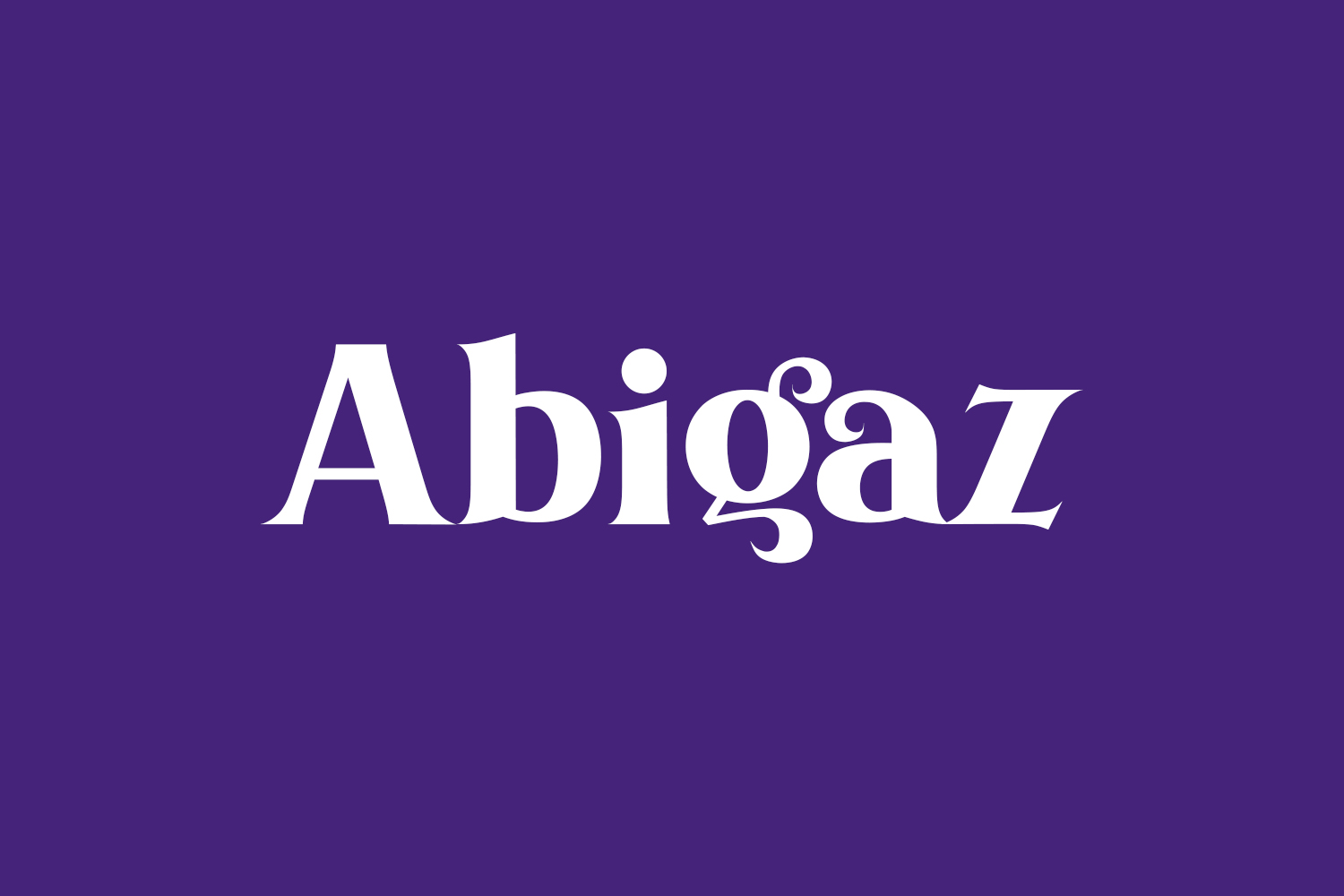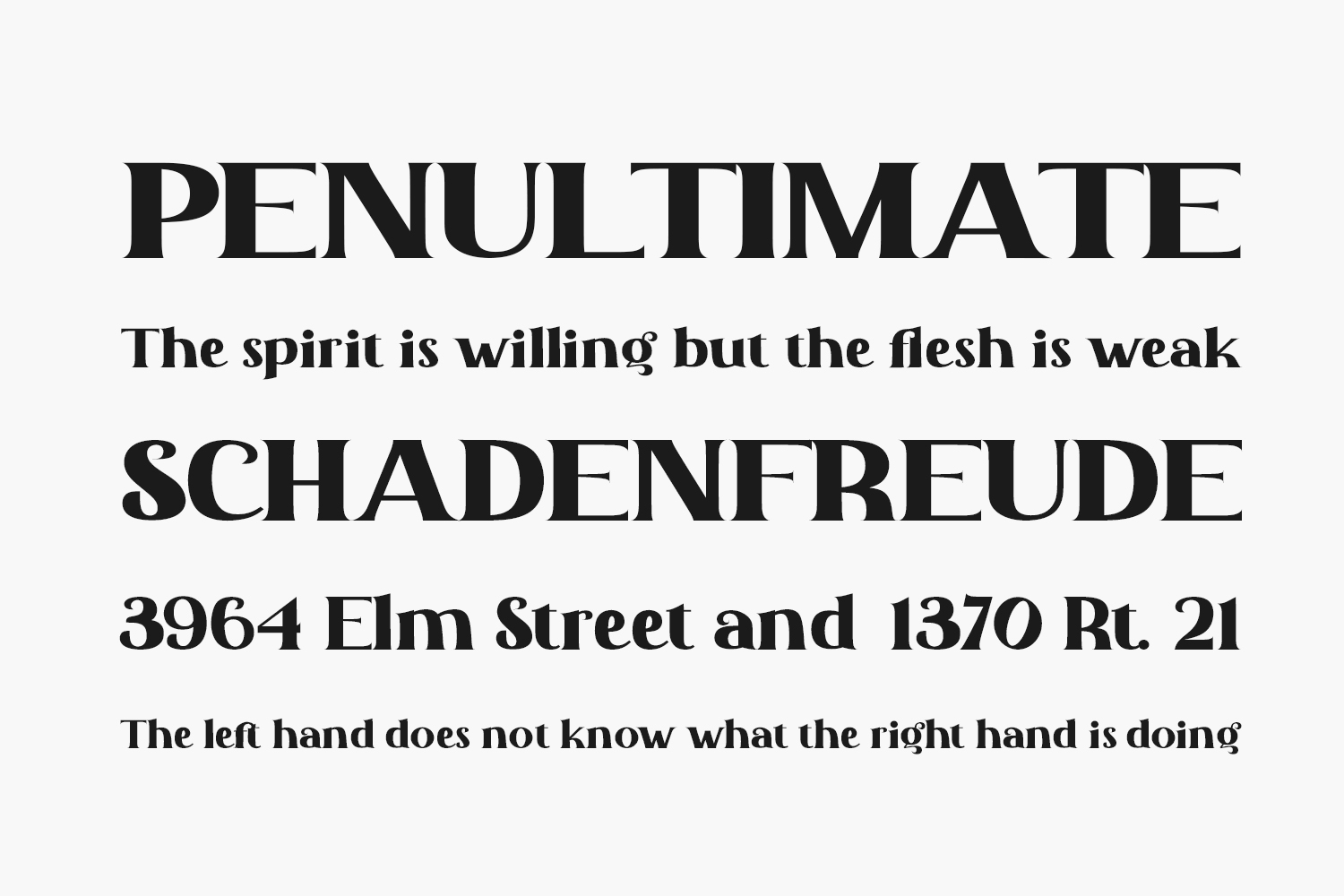
Elevate your designs with Abigaz Free Font, a sophisticated and stylish serif font. Its bold and distinctive letter shapes make it perfect for a variety of creative projects, adding a unique flair to your creations. Download the font for free if you need it for personal use or purchase the full version for commercial use.
Designed by Nuryanto Dwi